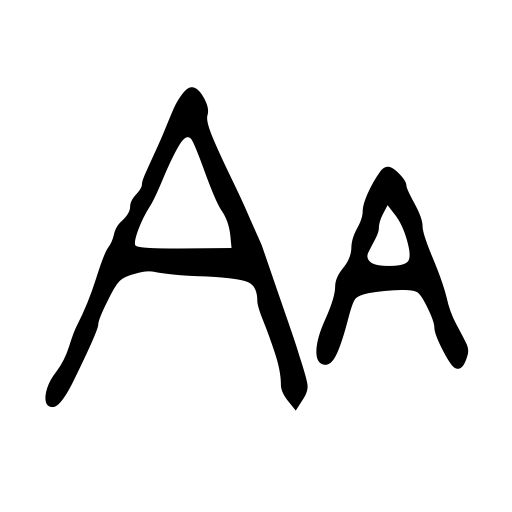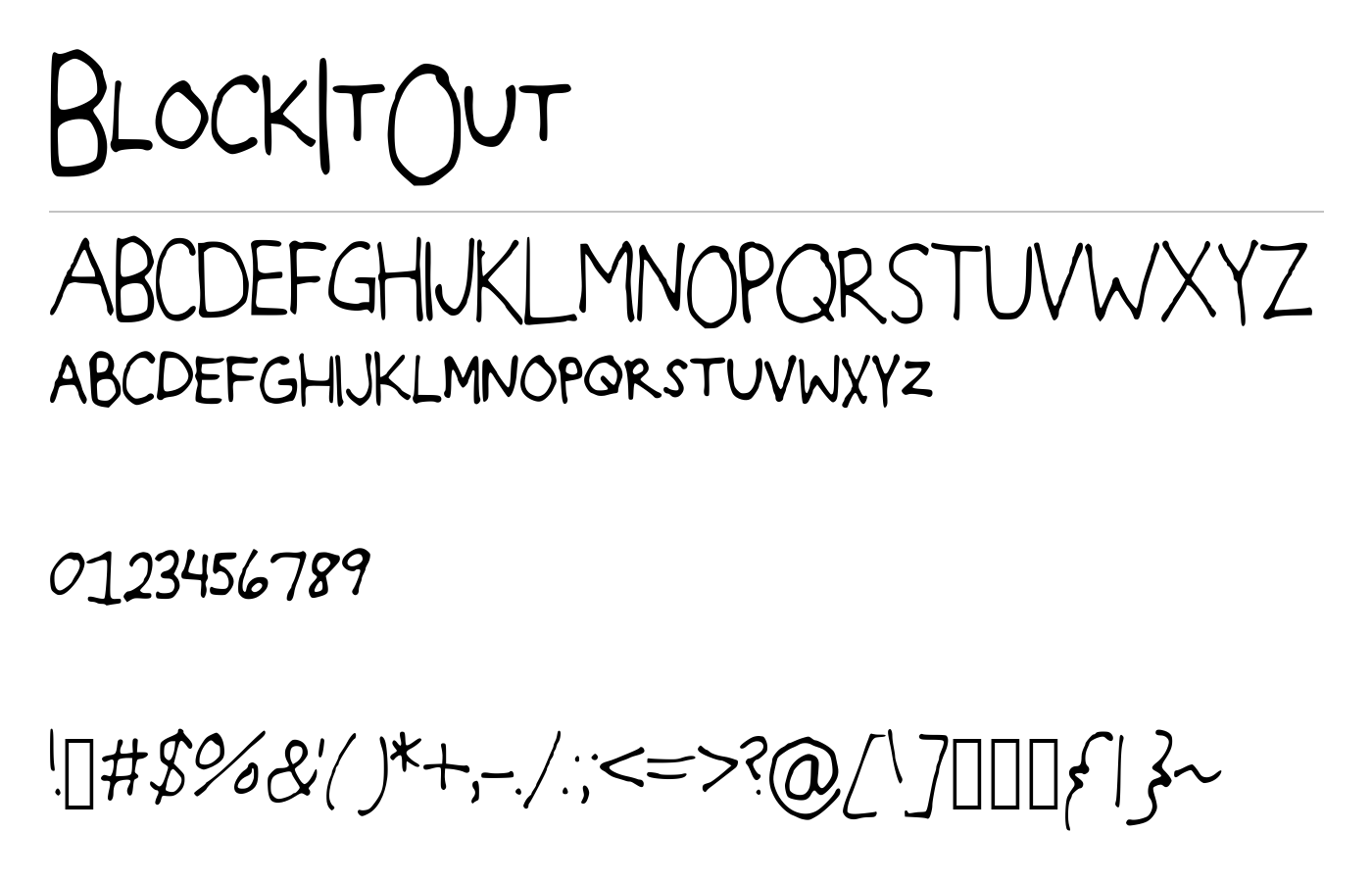
BlockItOut is a quirky, hand-drawn sans serif font with irregular, playful strokes and a casual, informal feel. It features a tall x-height with a lively, slightly uneven rhythm that adds personality, making it ideal for creative projects, children’s materials, or any design seeking a fun and approachable vibe. This font works best in headlines, logos, or playful branding where a unique, handcrafted look is desired.
BlockItOut Font
About BlockItOut Font